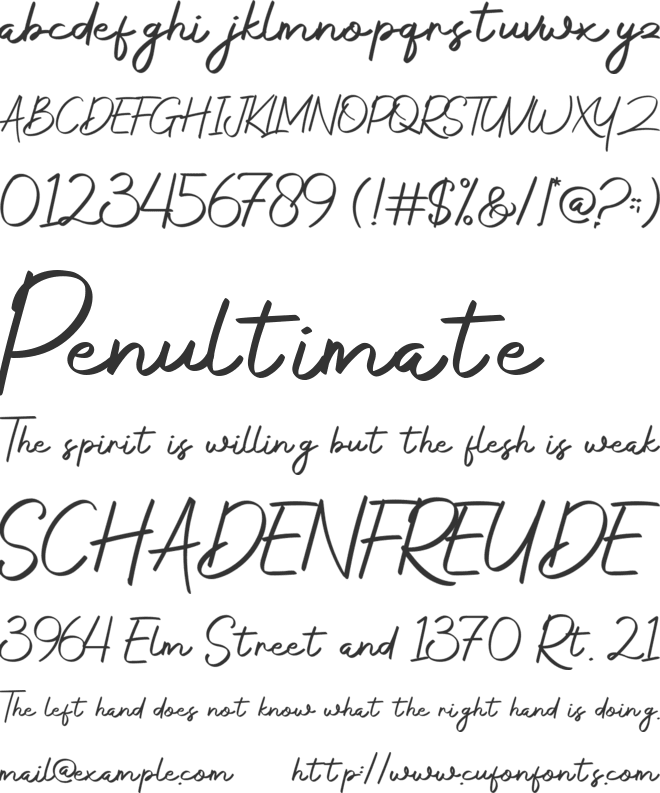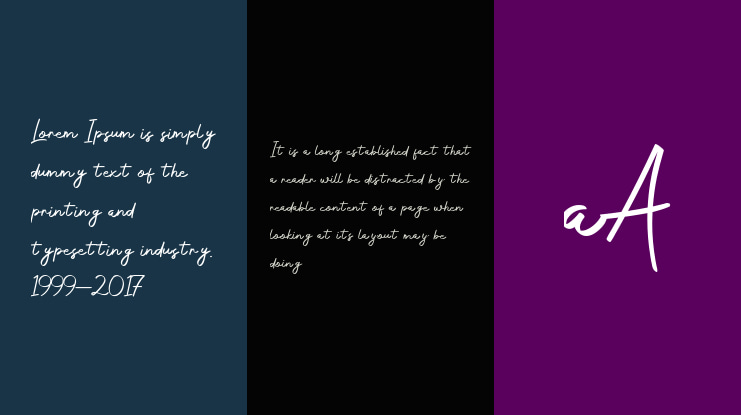
Astrida Destiny Font
Introducing our new script font “Astrida Destiny”, where timeless elegance meets contemporary sophistication in the realm of script calligraphy fonts. Designed with meticulous attention to detail, Astrida Destiny seamlessly blends fluid, organic strokes with a touch of modernity, creating a typeface that exudes both grace and versatility.
Astrida Destiny font preview